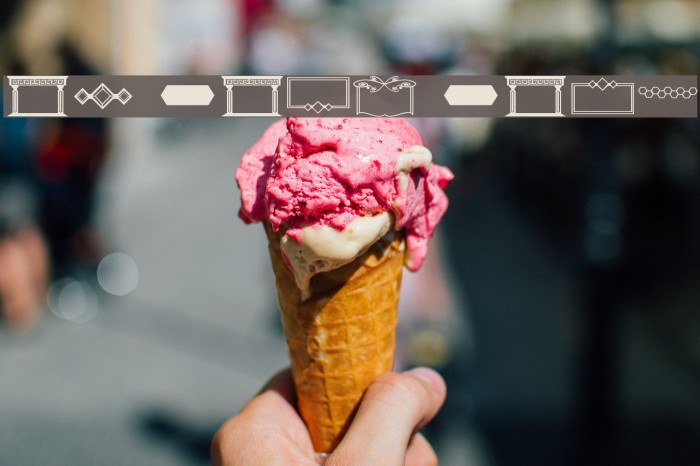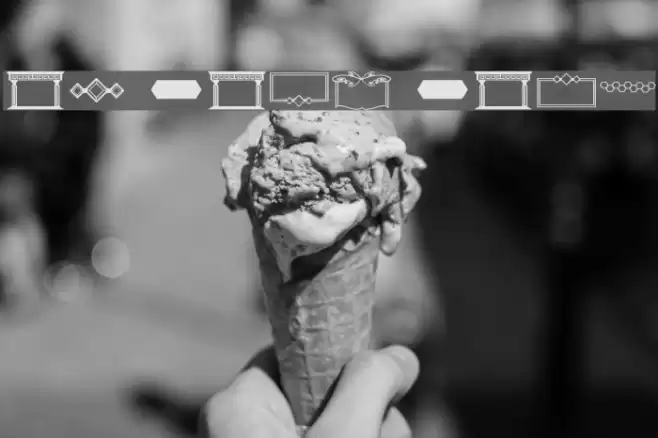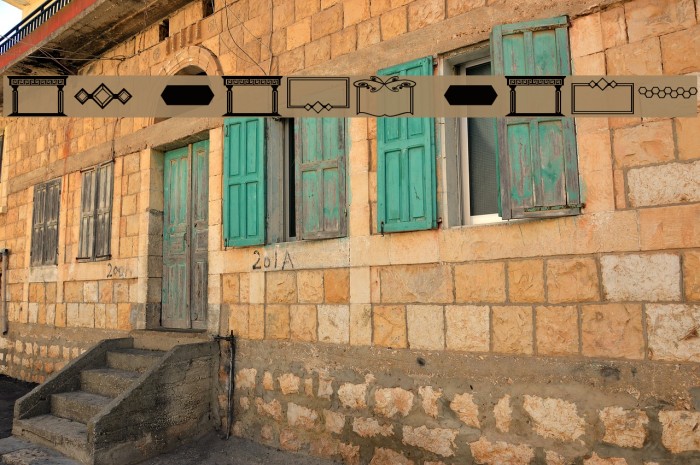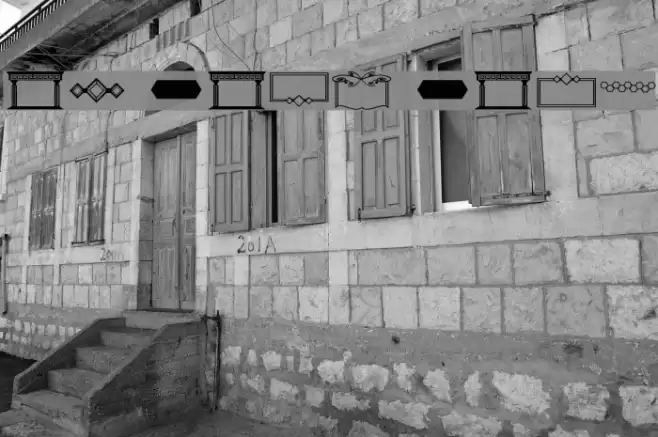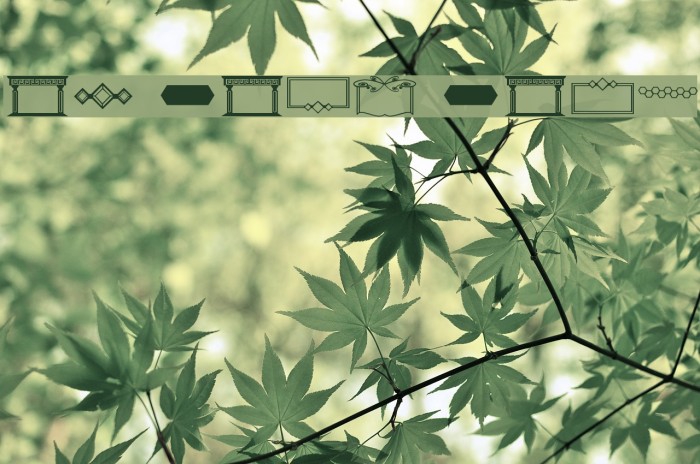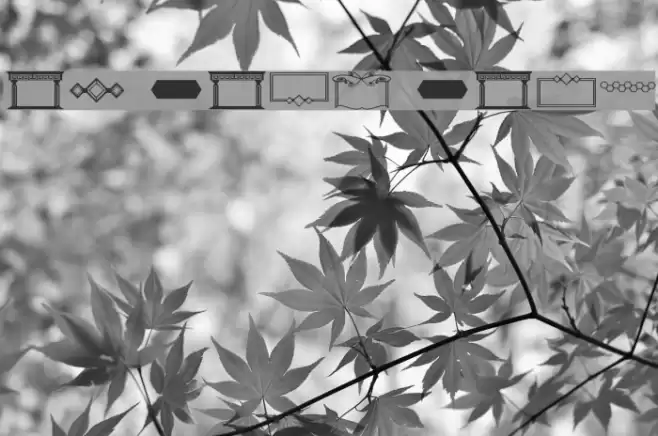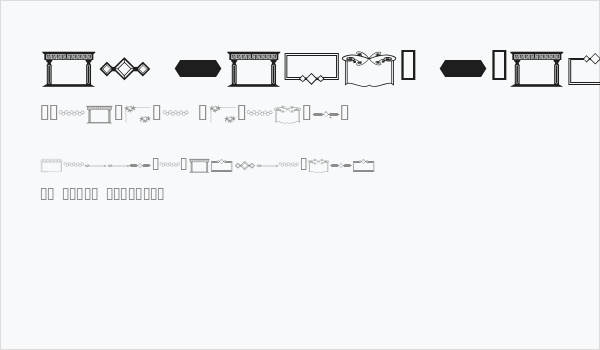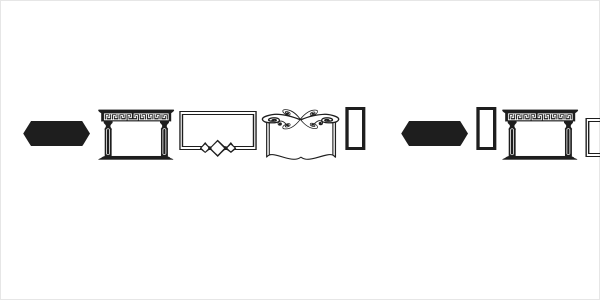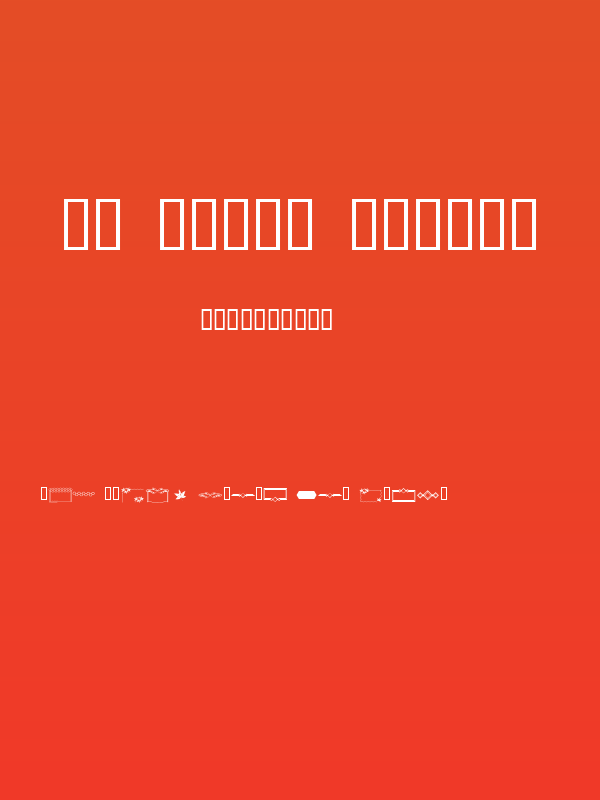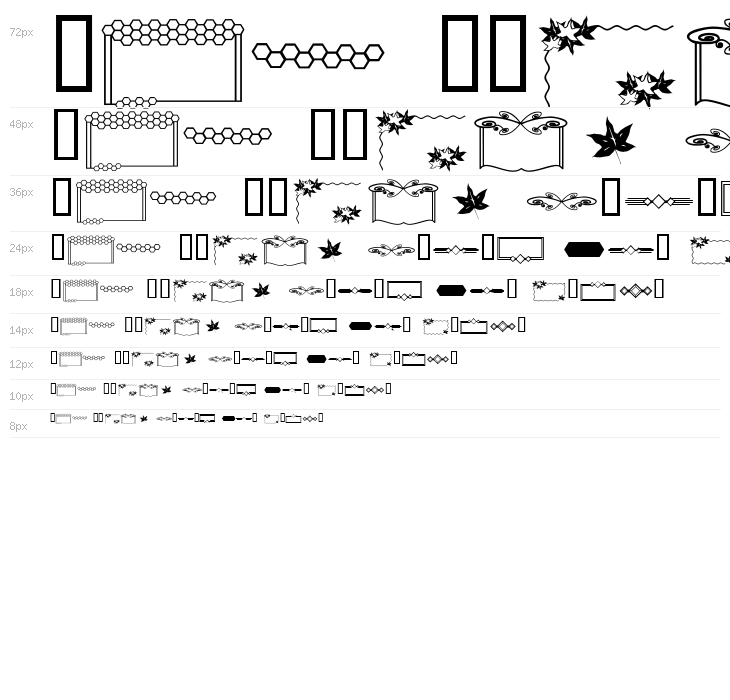
ap fancy frames Font
ap fancy frames Description
A decorative dingbat font featuring a variety of ornate frames, borders, and geometric embellishments, primarily composed of rectangular outlines and stylized motifs. The glyphs are bold, with consistent line thickness and a focus on ornamental design rather than traditional alphanumeric characters.
| Overall Style | Decorative, Vintage |
| Use Case | Borders, Frames, Decorative accents |
| Proposed Projects | Invitations, certificates, scrapbooking, decorative dividers, digital art, and vintage-style labels. |